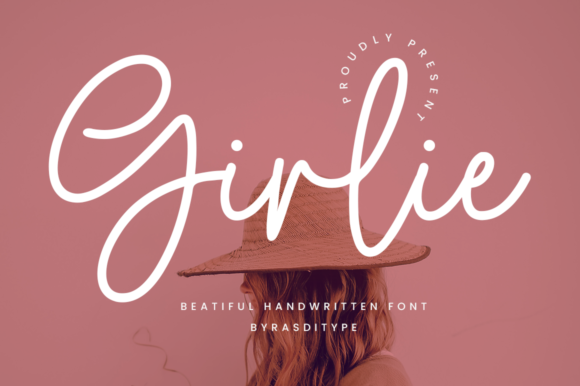
Introducing Girlie Font, a captivating and enchanting script font that will elevate your creative projects to new heights! Created by RasdiType, this magical font exudes elegance and charm, making it the perfect choice for anyone seeking fonts for tattoos or calligraphy scripts.
With its mesmerizing curves and graceful strokes, Girlie Font is designed to transform your ideas and inspirations into stunning works of art. Whether you're a social media enthusiast in search of fonts for Instagram or a DIY enthusiast looking for the perfect script for your projects, this font is a game-changer.
Imagine the power of Girlie Font in capturing attention and evoking emotions. Its delicate yet strong essence will instantly captivate your audience, leaving an indelible impression. Let your creative endeavors shine with this font's ability to infuse beauty and personality into every stroke.
Let your tattoos speak volumes with Girlie Font. Its script style adds a touch of allure and sophistication, allowing you to express your unique personality and story through ink. From intricate designs to meaningful quotes, this font will make your body art truly unforgettable.
But Girlie Font doesn't stop there. Its versatility extends beyond tattoos, making it the go-to choice for various projects. From wedding invitations to branding materials, this font effortlessly adds a touch of elegance and uniqueness. Stand out from the crowd and make a lasting impact with this enchanting script.
Don't settle for ordinary fonts that fail to convey the depth of your creativity. Girlie Font is your gateway to extraordinary designs that leave a lasting impression. Embrace the magic and let your imagination run wild with this captivating script font.